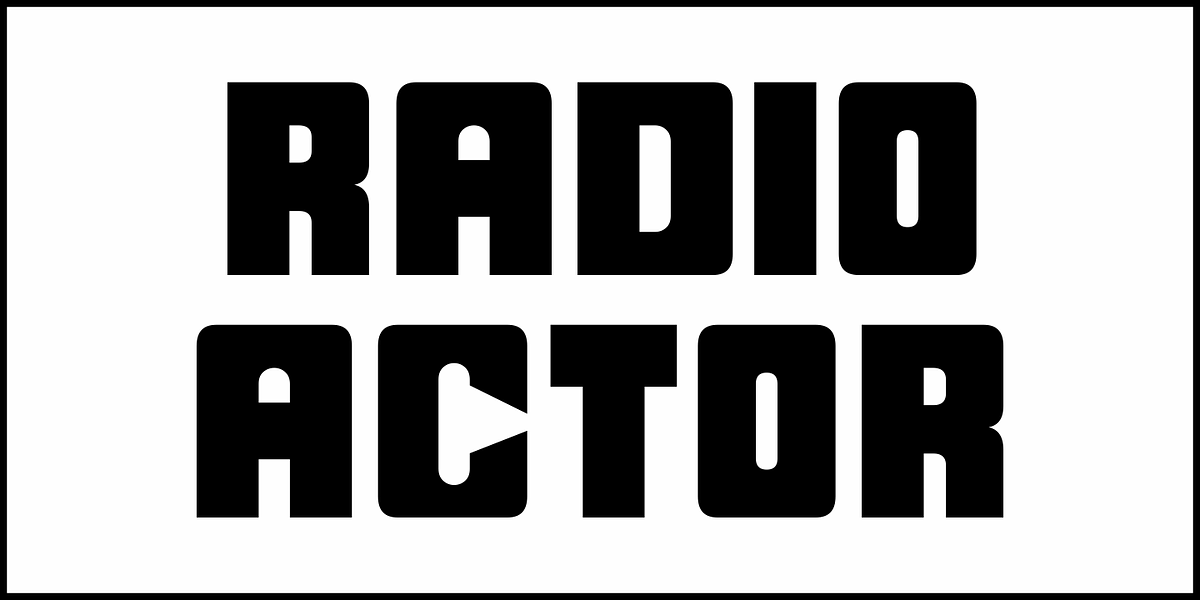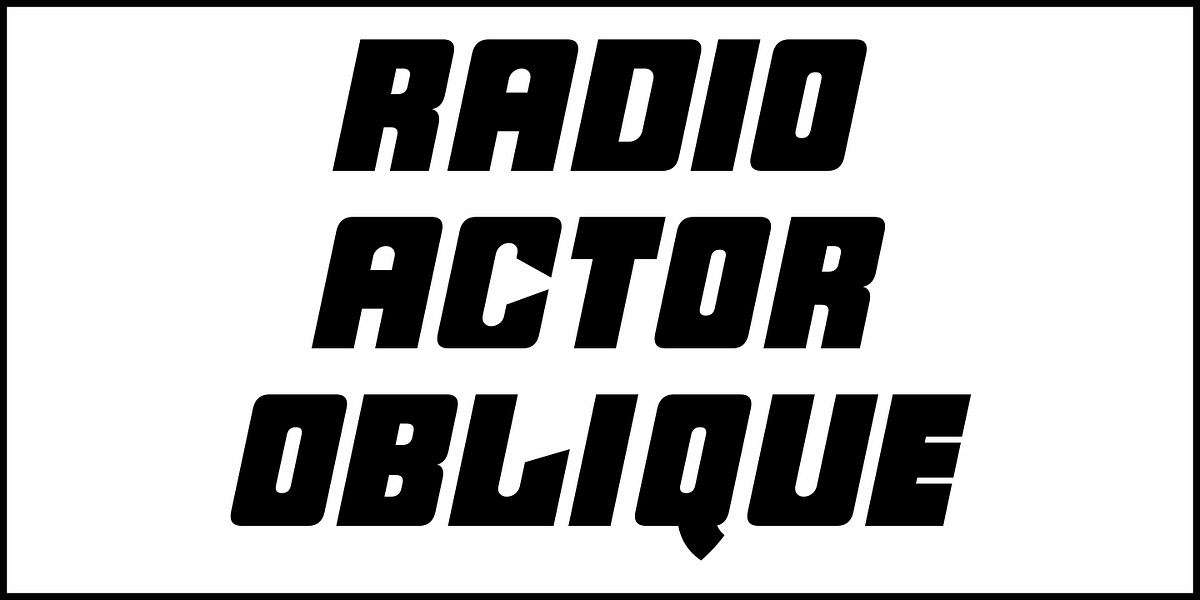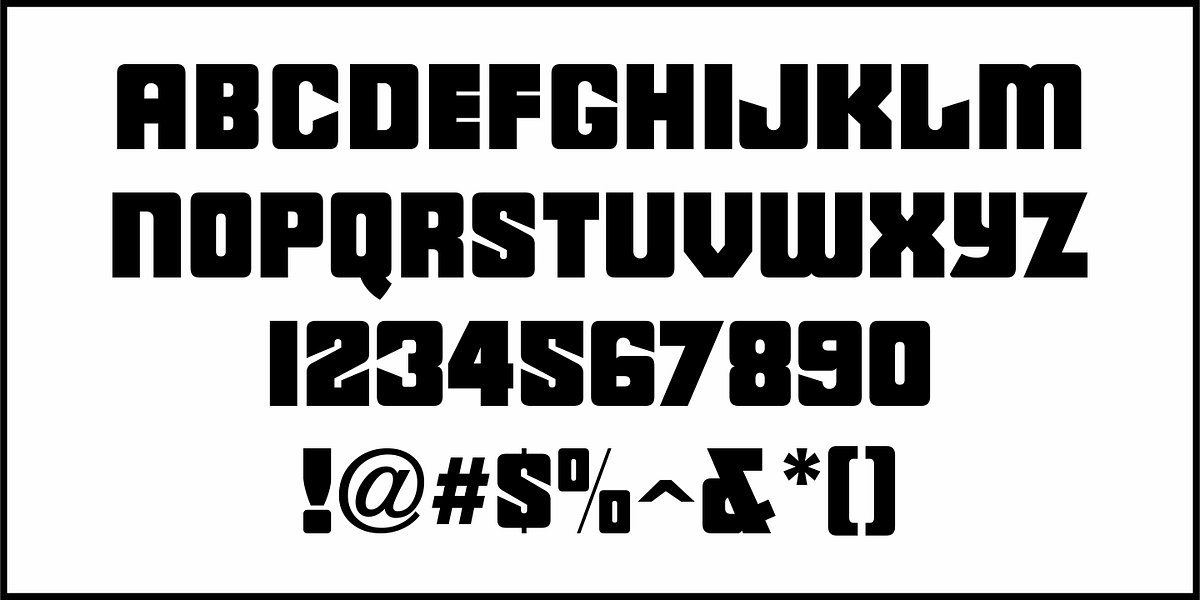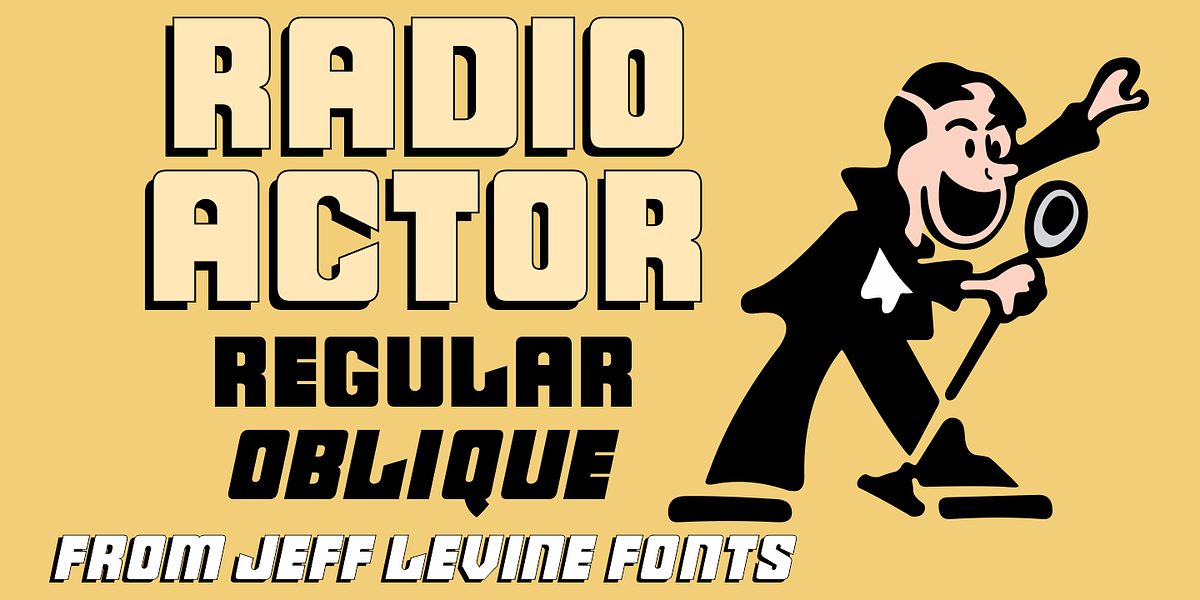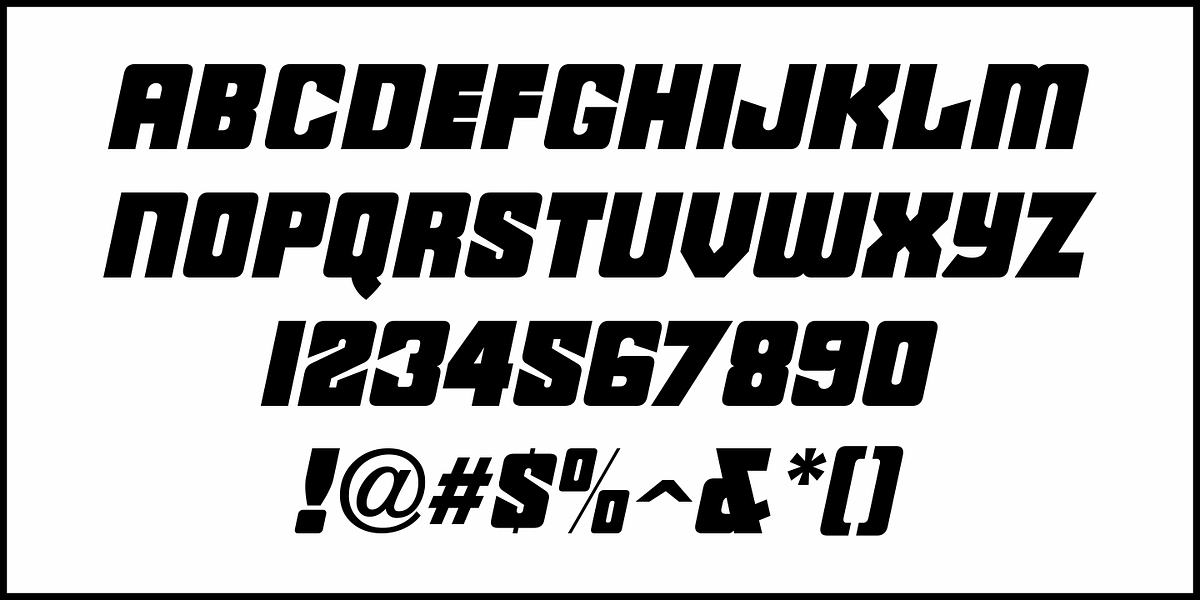
Radio Actor JNL
Bold and squared with rounded corners, the hand lettering found within the November, 1936 issue of Radio Mirror magazine really stands out. This stylized sans serif design, when used in poster displays or headline lettering, is attention-getting and drives the point home.
Radio Actor JNL, is available in both regular and oblique versions.